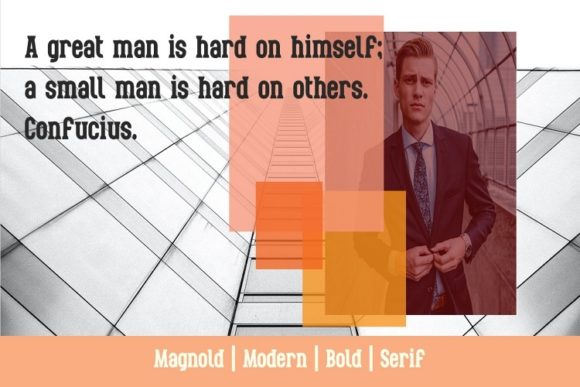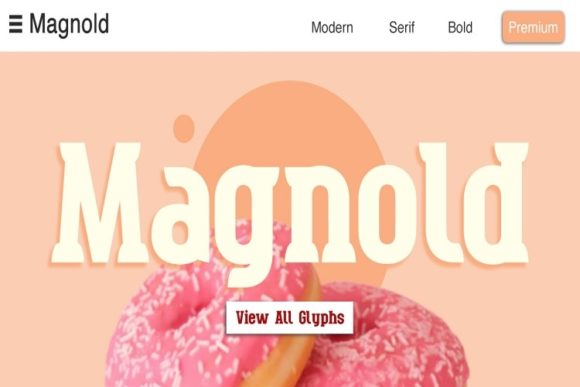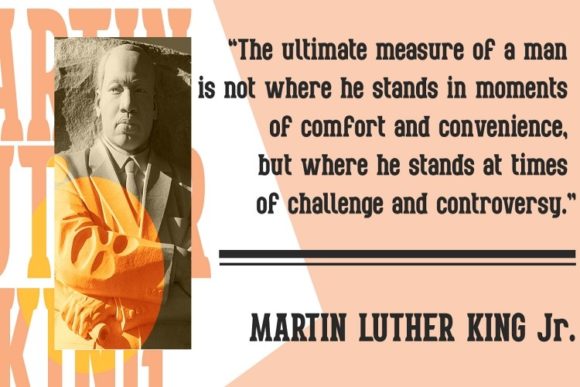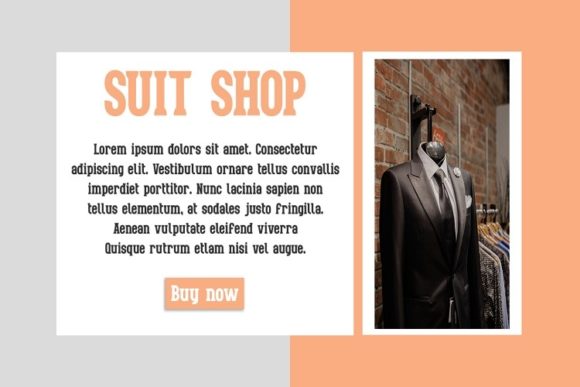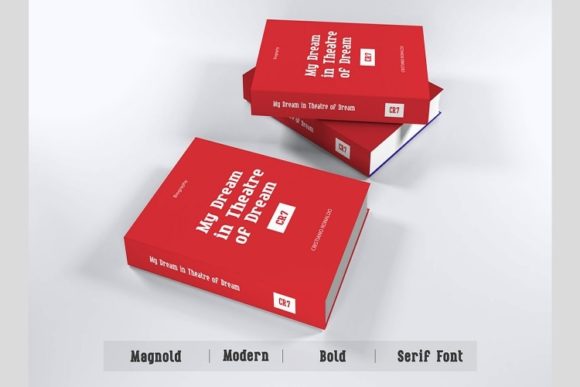
Introduction to Magnold Font
Magnold is a modern, bold, and elegant serif font.
| 📌 Product Name | Magnold Font |
| 👤 Author | hikhstudio |
Magnold is suitable for advertising, branding, logotypes, packaging, titles, headlines, and editorial design .
Key Features of Magnold Font
Why Choose Magnold Font?